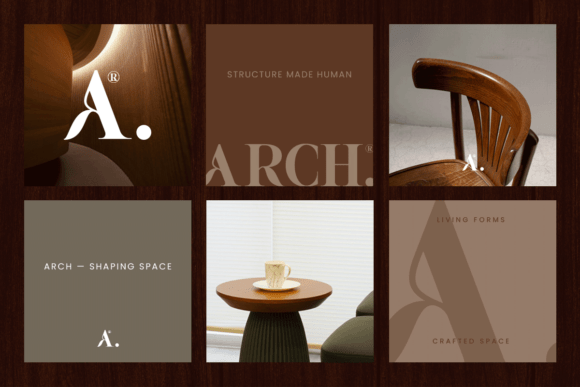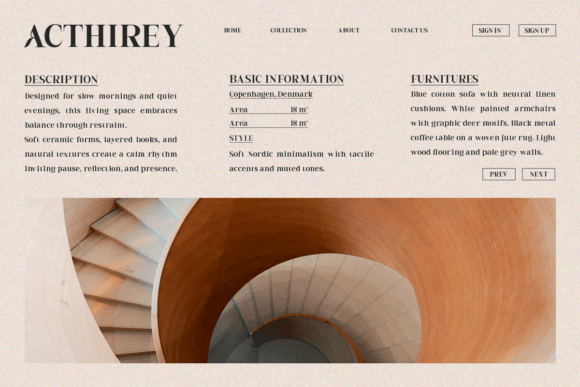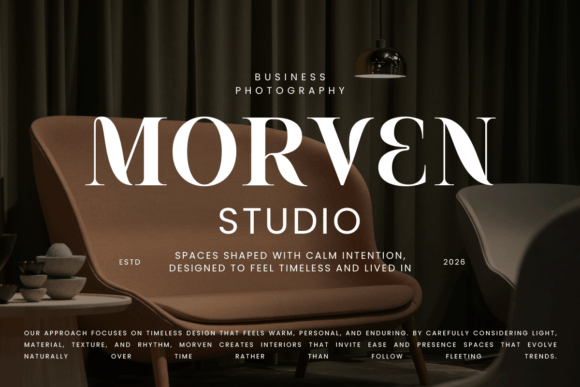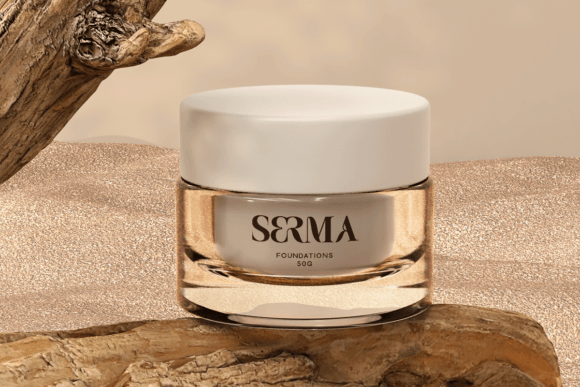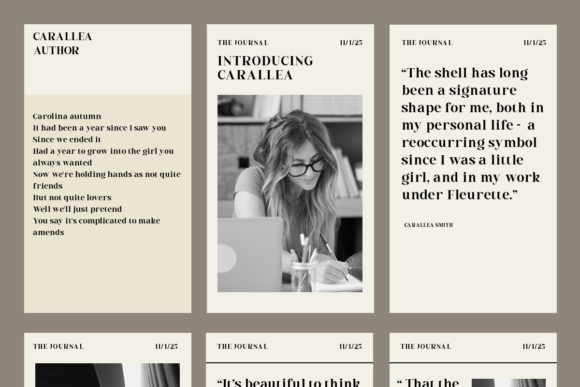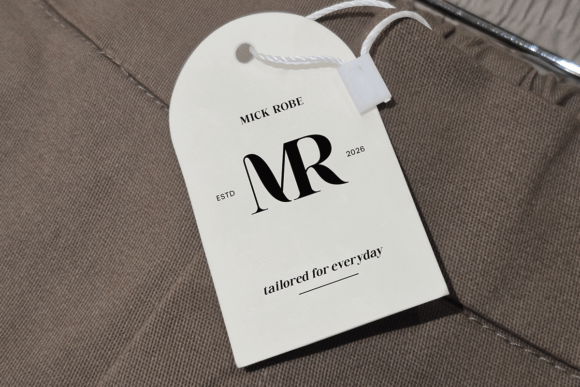
Introduction to Acthirey Font
Have you ever stumbled upon a design that left you speechless, like a beautiful typography on the cover of a luxury magazine? That’s the magic of the Acthirey Font. As a designer, you know how hard it is to find the perfect font that exudes elegance and sophistication. The Acthirey Font is that elusive treasure, a high-end display serif that will elevate any creative project to new heights.
With its unique letterforms, high-contrast strokes, and sharp serifs, the Acthirey Font is a design resource that’s hard to ignore. Whether you’re working on a luxury branding project or a high-end editorial piece, this font is the perfect choice to convey authority and sophistication. Its refined silhouette and “reflection-made” curves make it a stunning addition to any design, and its high quality will make your work stand out from the crowd.
Key Features of Acthirey Font
- Includes a comprehensive set of glyphs and characters, making it suitable for a wide range of creative projects.
- Acthirey Font is a unique and versatile design element that can be used in various creative contexts, from logos to graphics and more.
Honest Review: Acthirey Font
As a designer, I’m always on the lookout for high-quality design resources to elevate my creative projects. Recently, I stumbled upon the Acthirey Font, and I’m excited to share my honest review.
What works well about the Acthirey Font is its clean and modern aesthetic. The font is perfect for creating visually appealing headers and titles, especially when paired with a transparent background. It’s also free to download, making it a great resource for designers on a budget.
Here are some of the font’s standout features:
- High-quality design: The Acthirey Font is well-crafted and looks great at various font sizes.
- Transparent background: The font’s transparent background makes it easy to pair with any background image or color.
- Perfect for creative projects: The Acthirey Font is ideal for designers working on creative projects, such as logos, branding, and marketing materials.
While the Acthirey Font is a great addition to any designer’s library, it’s not perfect. One limitation is that it may not be as versatile as some other fonts on the market. It’s primarily designed for modern and creative projects, so it may not be the best choice for more traditional or formal designs.
Overall, I’m impressed with the Acthirey Font and would definitely recommend it to designers looking for a high-quality, free design resource.
Getting the Most Out of Acthirey Font
To get the most out of Acthirey Font, use it in combination with other high-quality design resources. Experiment with different font sizes, colors, and arrangements to create a unique look for your creative project.
Acthirey Font is commonly used in graphic design, branding, and digital art. Its high-quality and unique design make it a popular choice for designers looking to add a touch of sophistication to their projects.
Q: Is the Acthirey Font high-quality and suitable for professional designs?
Yes, the Acthirey Font is designed to meet the highest standards of quality and is suitable for professional designs. It features a unique and modern design, making it perfect for creative projects, branding, and marketing materials. The font is carefully crafted to ensure it looks great in both print and digital formats.